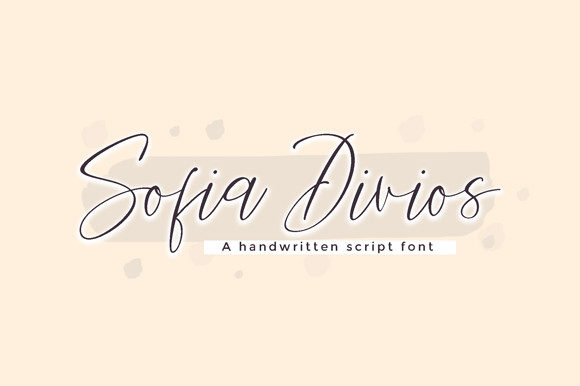
Unleash your creativity and step into the captivating world of digital artistry with Sofia Divios Script Font—a script font born from the fusion of grace and modernity. This remarkable font, crafted by the masterminds at FontCastle, embodies a symphony of styles, effortlessly blending classic elegance with a touch of contemporary charm.
Adorn your designs with the alluring curves and whimsical swashes of Sofia Divios Script. This font was meticulously designed to evoke emotions and create a lasting impression, making it the perfect choice for game designers seeking to weave magic into their digital realms.
Embark on an enchanting journey as you explore the boundless possibilities of Sofia Divios Script. Its versatility knows no bounds, extending from enchanting logos and captivating invitations to mesmerizing social media posts and spellbinding website designs. With this font, your creativity will flourish like never before.
Discover the allure of Sofia Divios Script and unlock the gateway to a world where imagination reigns supreme. Let your designs dance with elegance, igniting the senses and leaving an indelible mark on the hearts of your audience.